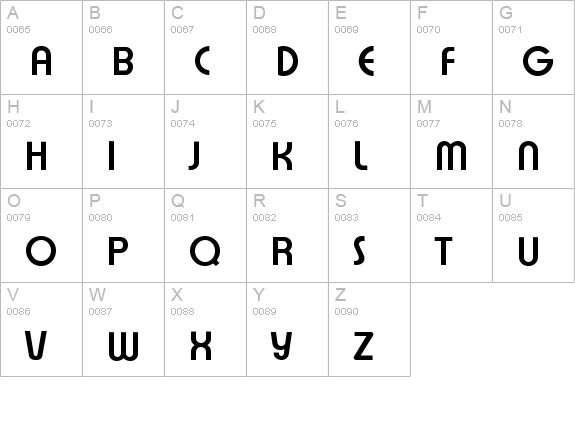
Expressa-DemiBold is a sub-bold, structured variant in the Expressa typeface family \xE2\x80\x94 well suited to sub-headlines and emphasised passages.
Expressa-DemiBold is a striking and versatile typeface that combines modern aesthetics with a touch of classic elegance. Its bold and distinct letterforms make it perfect for conveying a sense of strength and confidence in any design project. The semi-bold weight adds a sense of balance and authority to your text, making it ideal for headlines, titles, and branding purposes. What sets Expressa-DemiBold apart is not only its powerful design but also the fact that it is available for free download at FontsMarket.com. This means that you can easily access this high-quality font without any cost, making it a valuable addition to your font library. Whether you are working on a professional graphic design project or simply looking to enhance your personal creations, Expressa-DemiBold is a fantastic choice that combines style, versatility, and accessibility.